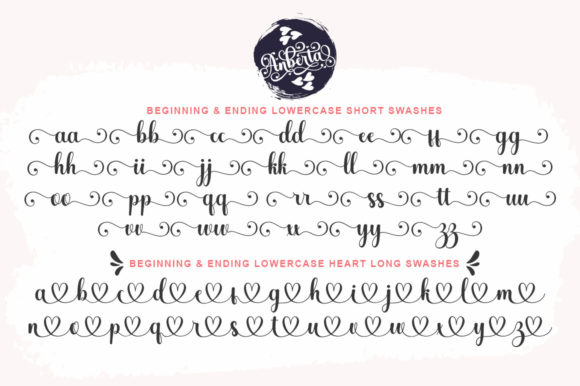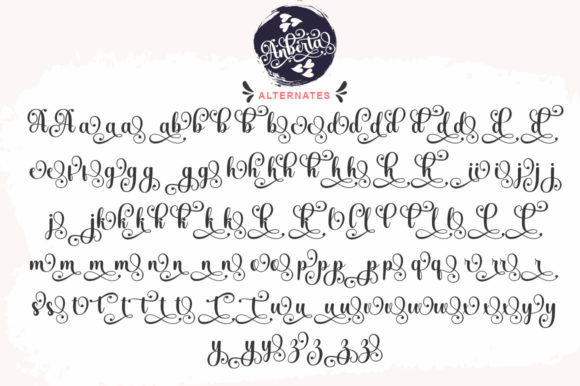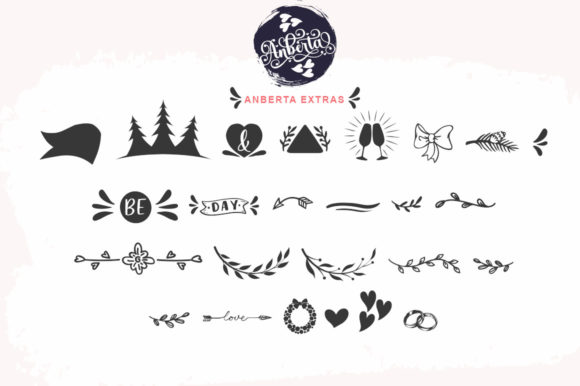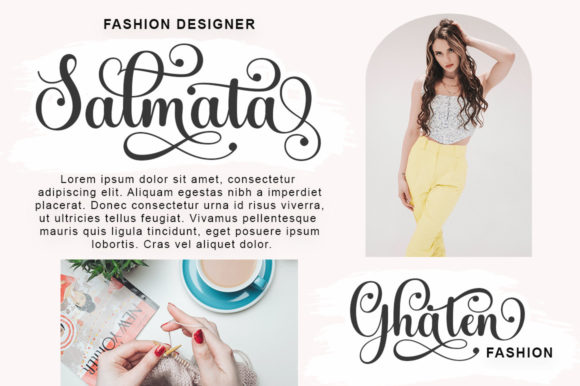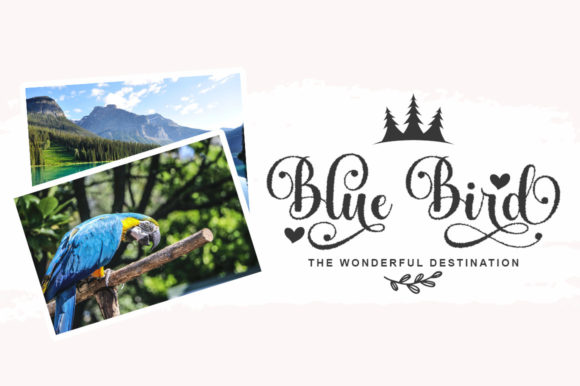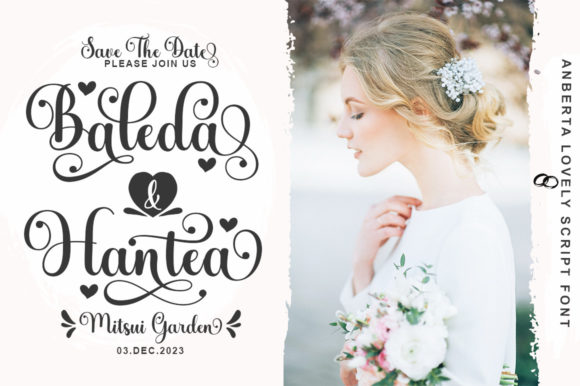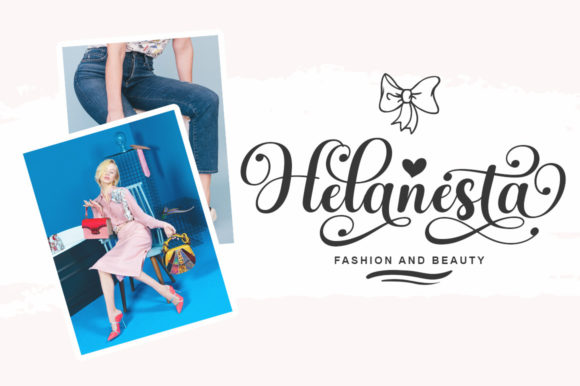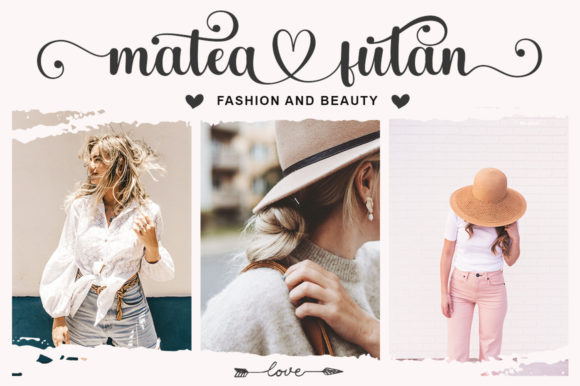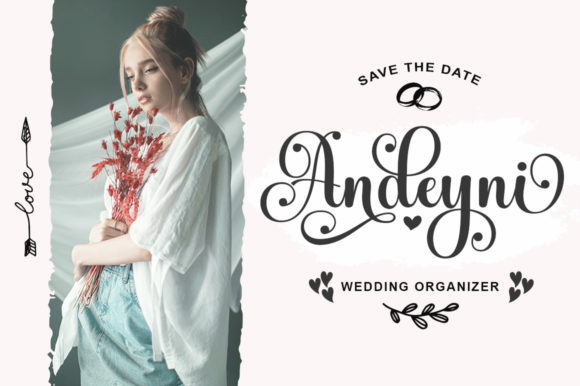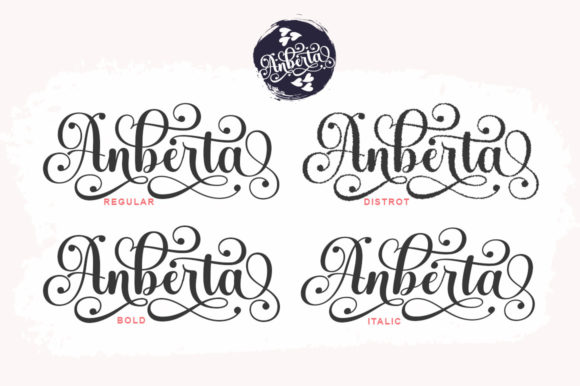
Anberta Font
About Anberta Font
“Anberta” is a stunning script font that brings a touch of elegance and charm to any design project. With its graceful curves and beautifully designed letterforms, this font is sure to add a lovely spark of creativity to your creations.
The font’s versatile nature allows it to shine in a variety of design applications. Whether you’re working on branding, logo design, product packaging, invitations, or any other project, “Anberta” can elevate your work with its exquisite and captivating style.
In branding and logo design, “Anberta” can help create a distinctive and memorable brand identity. Its unique glyphs and ligatures, made accessible through PUA encoding, enable you to add personalized touches that set your brand apart.
For product packaging, “Anberta” adds a touch of sophistication and luxury. Its gorgeous letterforms can enhance the visual appeal of labels, tags, and packaging designs, making your products stand out on the shelves.
When it comes to invitations and event stationery, “Anberta” brings an air of elegance and romance. Whether you’re designing wedding invitations, greeting cards, or announcements, the font’s exquisite details will leave a lasting impression on recipients.
Social media graphics and promotional materials also benefit from the font’s beautiful aesthetics. “Anberta” can be used to create visually striking posts, quotes, and announcements that capture attention and engage your audience.
In summary, “Anberta” is a truly gorgeous script font that adds a lovely spark of beauty and sophistication to any design project. Its PUA encoding ensures easy access to a wide range of glyphs and ligatures, giving you the freedom to create stunning and personalized designs that leave a lasting impact.